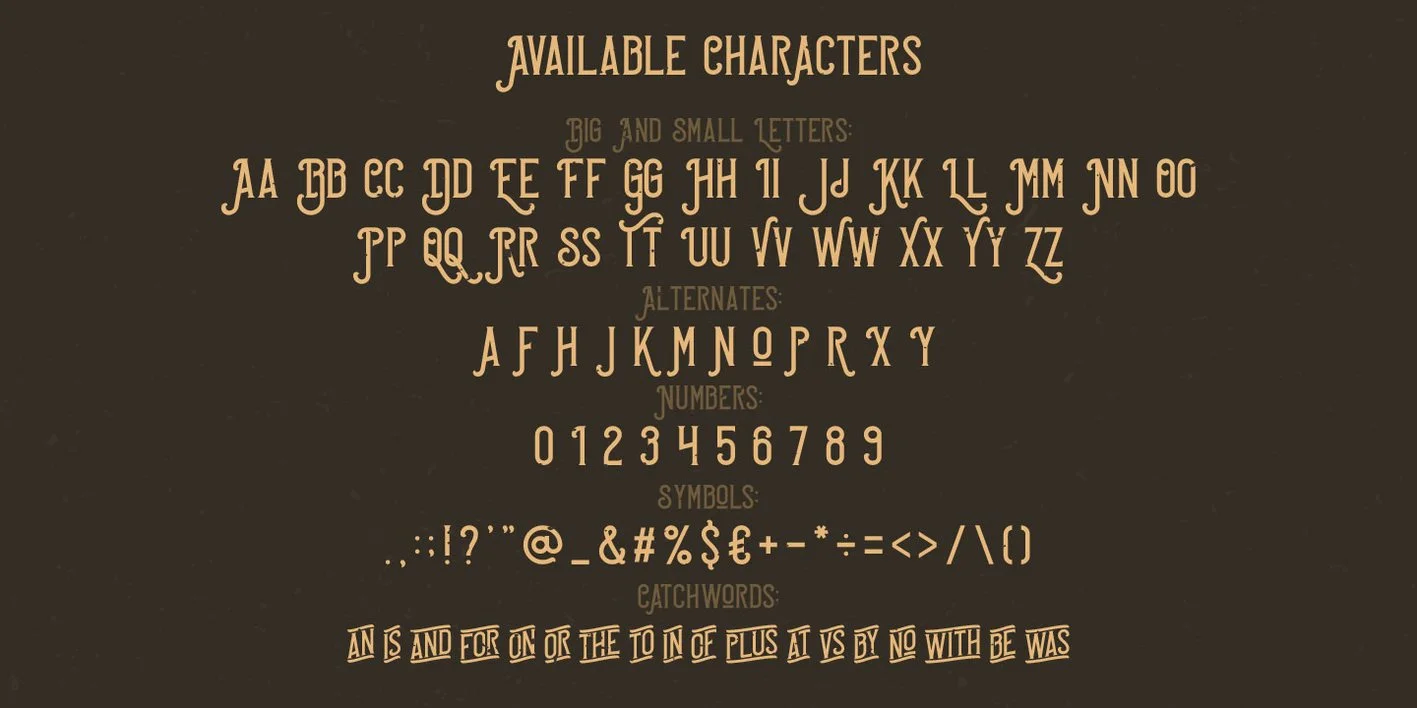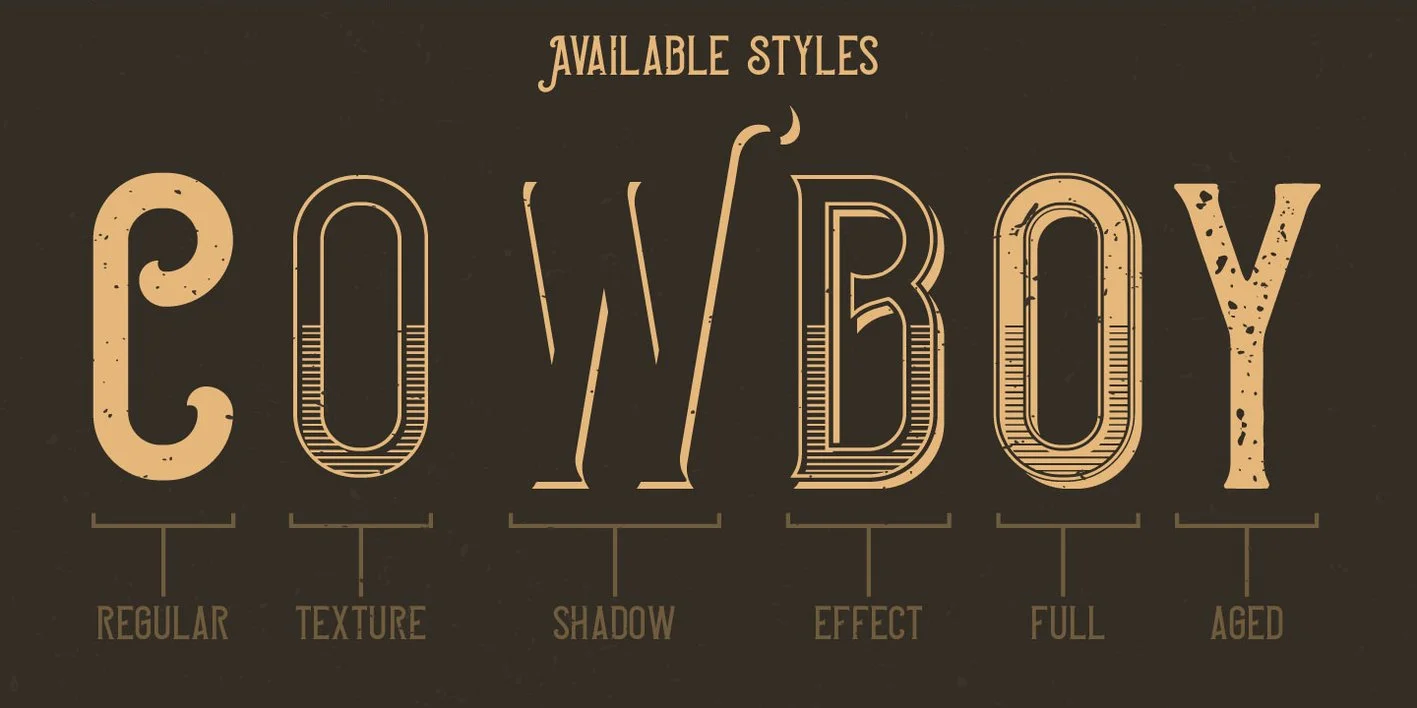
Quick or Dead Font
A good typeface communicates tone before a single word is read. Quick or Dead achieves this through a confident voice that adapts to diverse briefs. The typeface brings a versatile sensibility to a broad range of creative disciplines, with versatility across print and screen contexts that holds up whether the work is print-first or screen-first.
In practice, Quick or Dead proves particularly effective for web design, annual reports, editorial layouts, logo design, product labels. Designers reaching for it find that the type decisions feel resolved rather than laboured — a useful quality when client timelines are tight.
The range of applications extends to environmental graphics, signage systems, packaging design, advertising campaigns. That breadth is deliberate: the proportions and spacing were stress-tested across a wide range of mock briefs before the typeface was finalised.
The consistent rhythm of Quick or Dead across a full paragraph creates the kind of even grey value that makes extended reading comfortable, a detail that matters more in long-form content than its subtlety might suggest.
Freelance designers across print and digital disciplines find Quick or Dead a reliable choice for projects that demand both personality and restraint. The design avoids the self-conscious quirkiness that dates quickly, settling instead for considered distinctiveness that holds up over time.